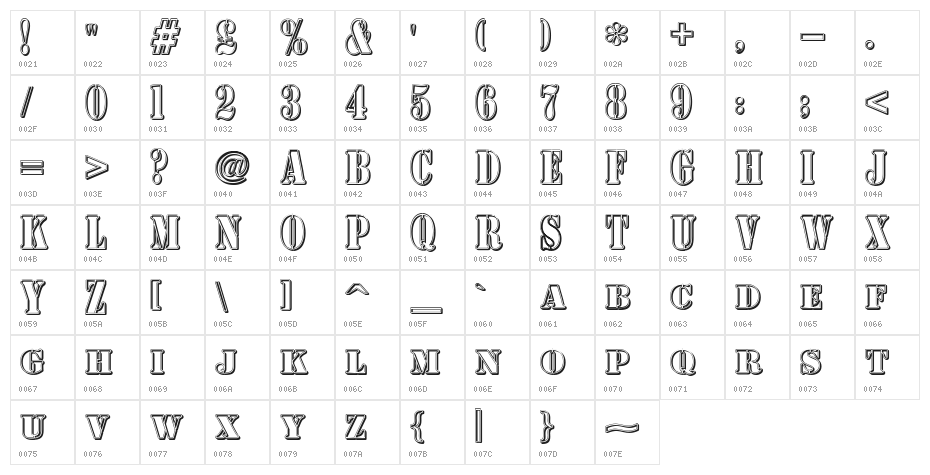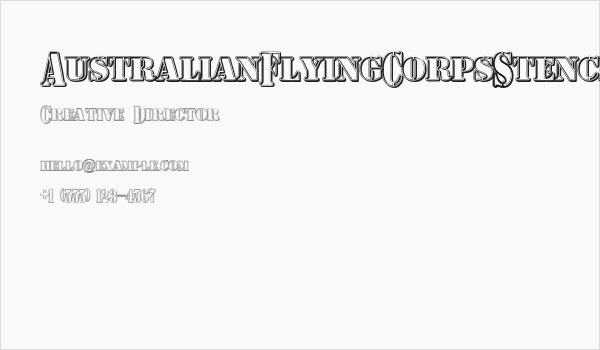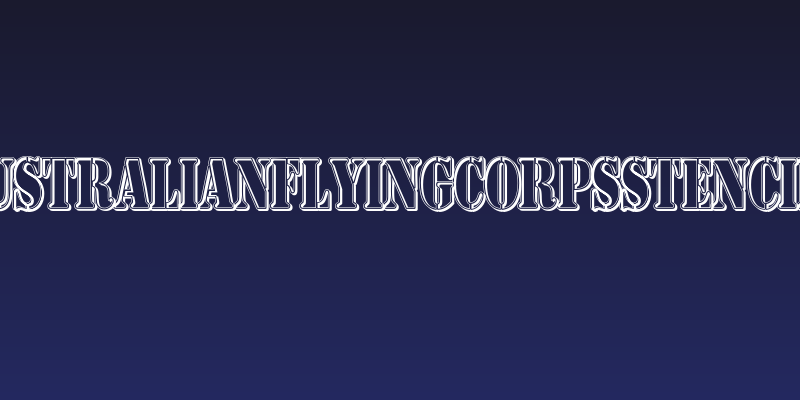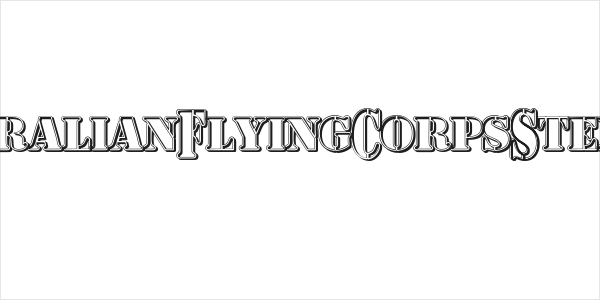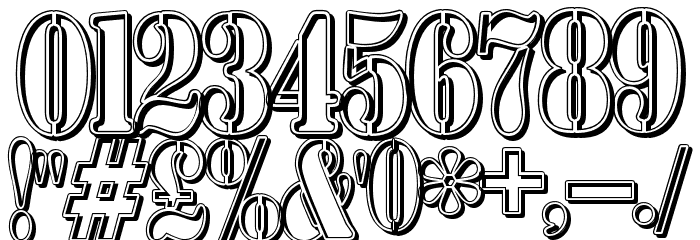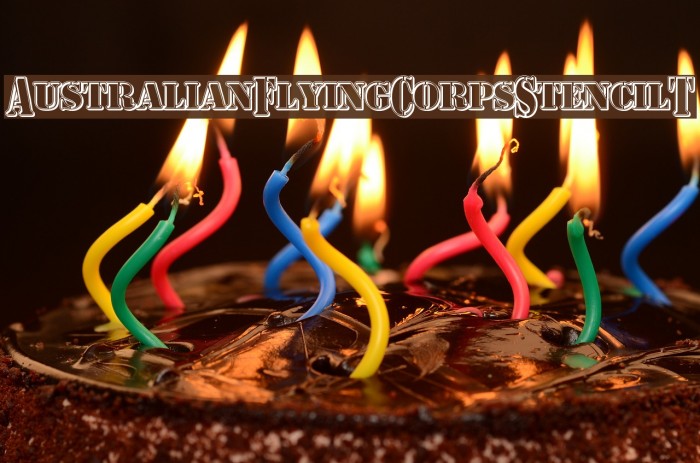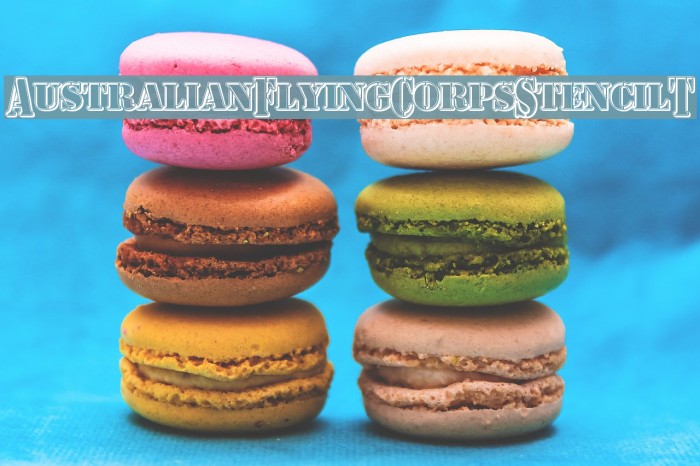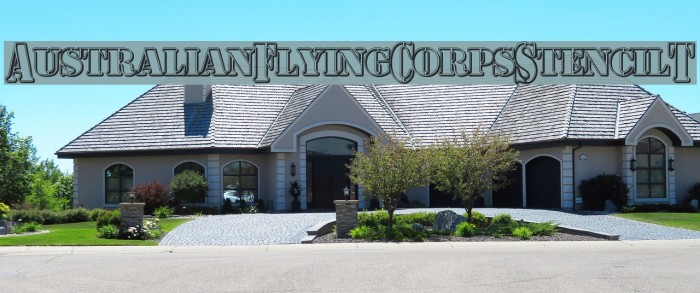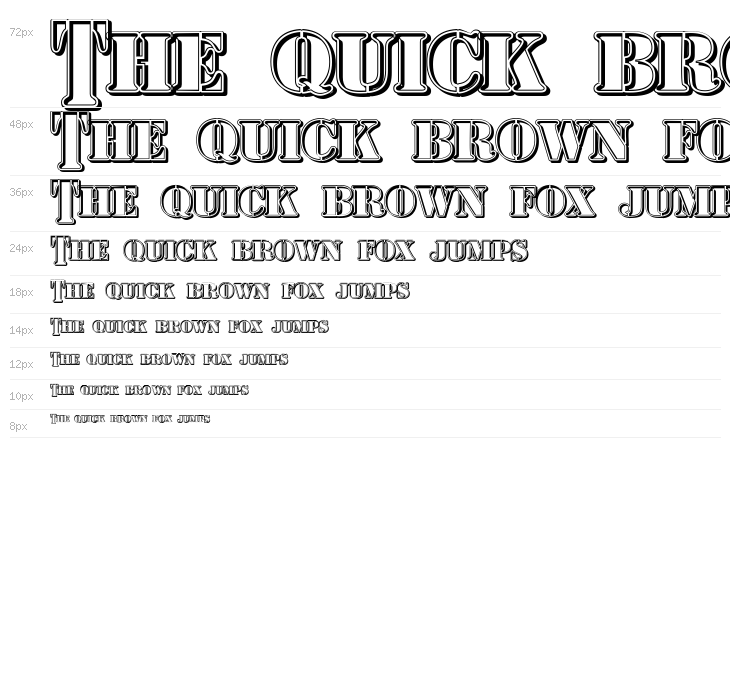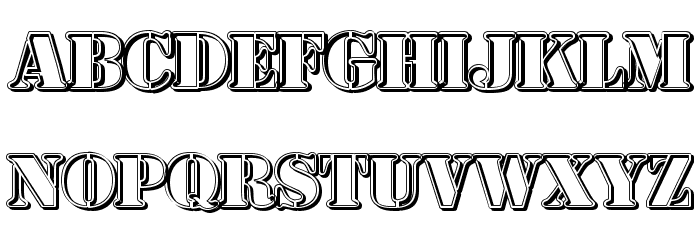
AustralianFlyingCorpsStencilT Font
AustralianFlyingCorpsStencilT Description
This font features a bold, stencil-like design with a strong, structured appearance. The letters are outlined with a double line, giving them a three-dimensional effect. The uppercase characters are uniform in height and width, creating a cohesive look. The numbers and special characters follow the same style, maintaining consistency across the font. The design is reminiscent of military or industrial stencils, making it ideal for projects that require a bold and impactful visual statement.
| Proposed Projects | Ideal for military-themed designs, industrial branding, posters, and signage that require a strong visual impact. |